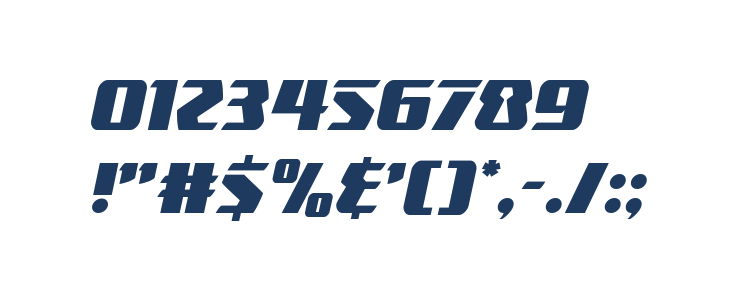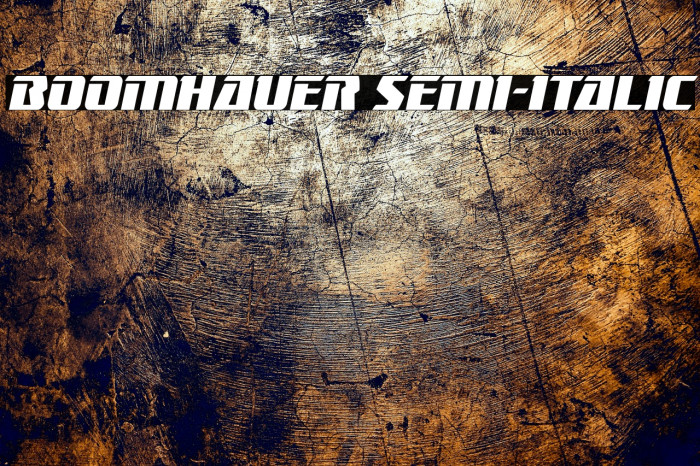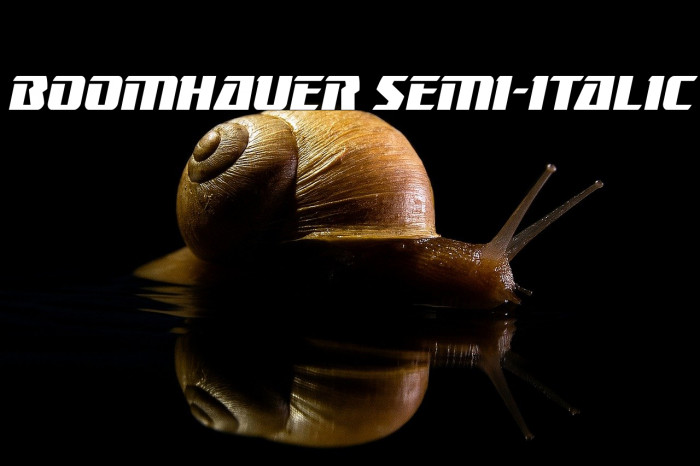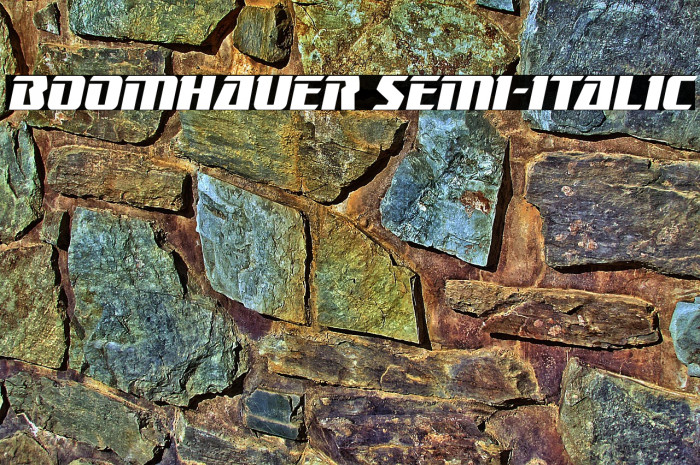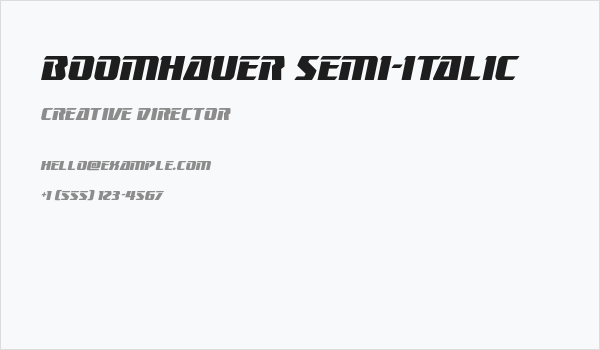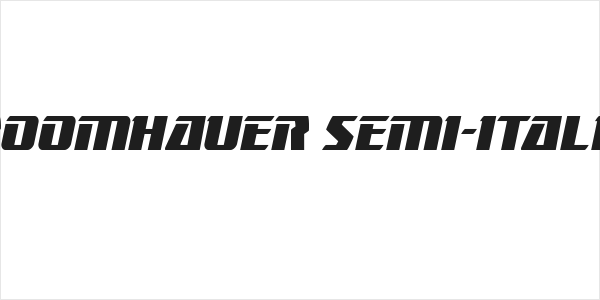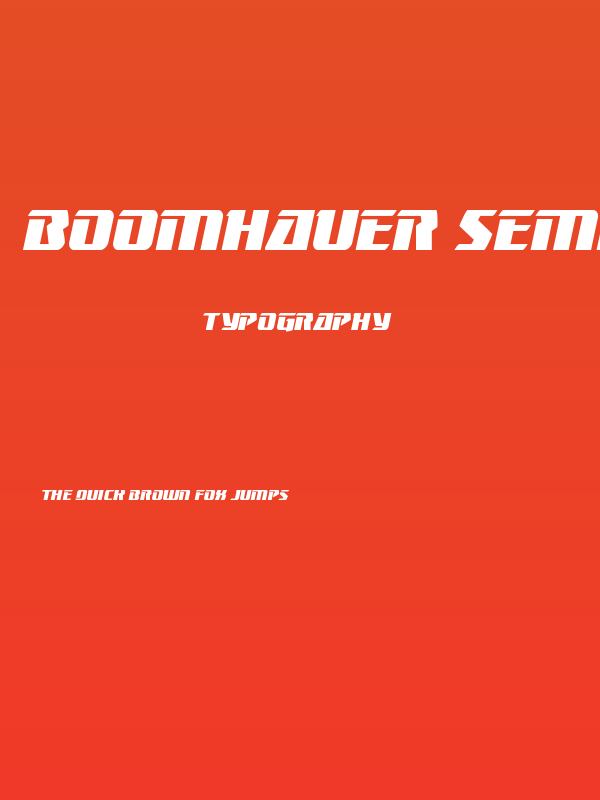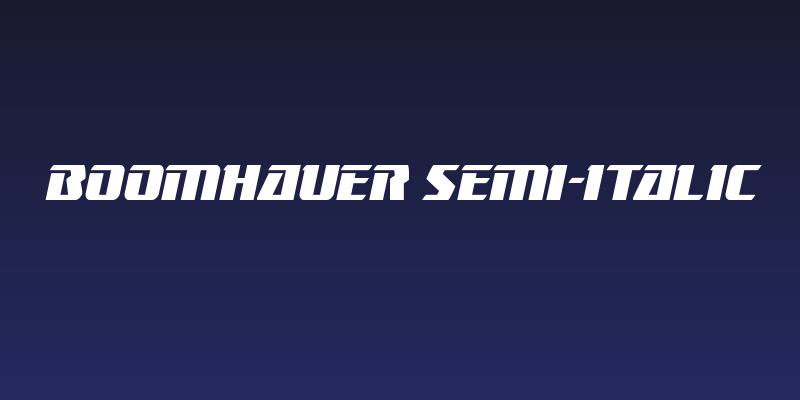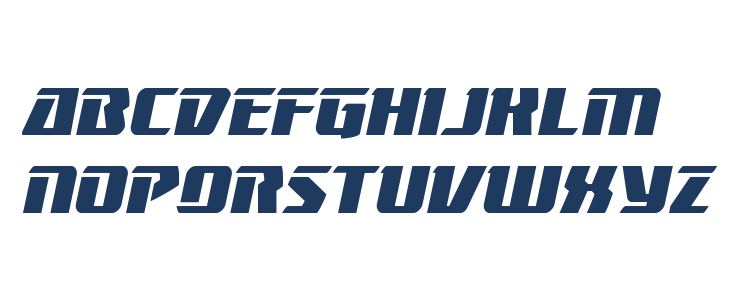
Boomhauer Semi-Italic Font
Boomhauer Semi-Italic Description
This font features a bold, angular design with a semi-italic slant, giving it a dynamic and modern appearance. The characters are sharply cut with distinct edges, creating a sense of movement and energy. The uppercase letters are particularly striking, with a futuristic style that is both eye-catching and assertive. The numerals and special characters maintain this bold aesthetic, ensuring consistency across all glyphs. The font's unique style makes it suitable for projects that require a strong visual impact.
| Proposed Projects | Ideal for sports branding, video game titles, posters, and any project needing a strong, modern typeface. |